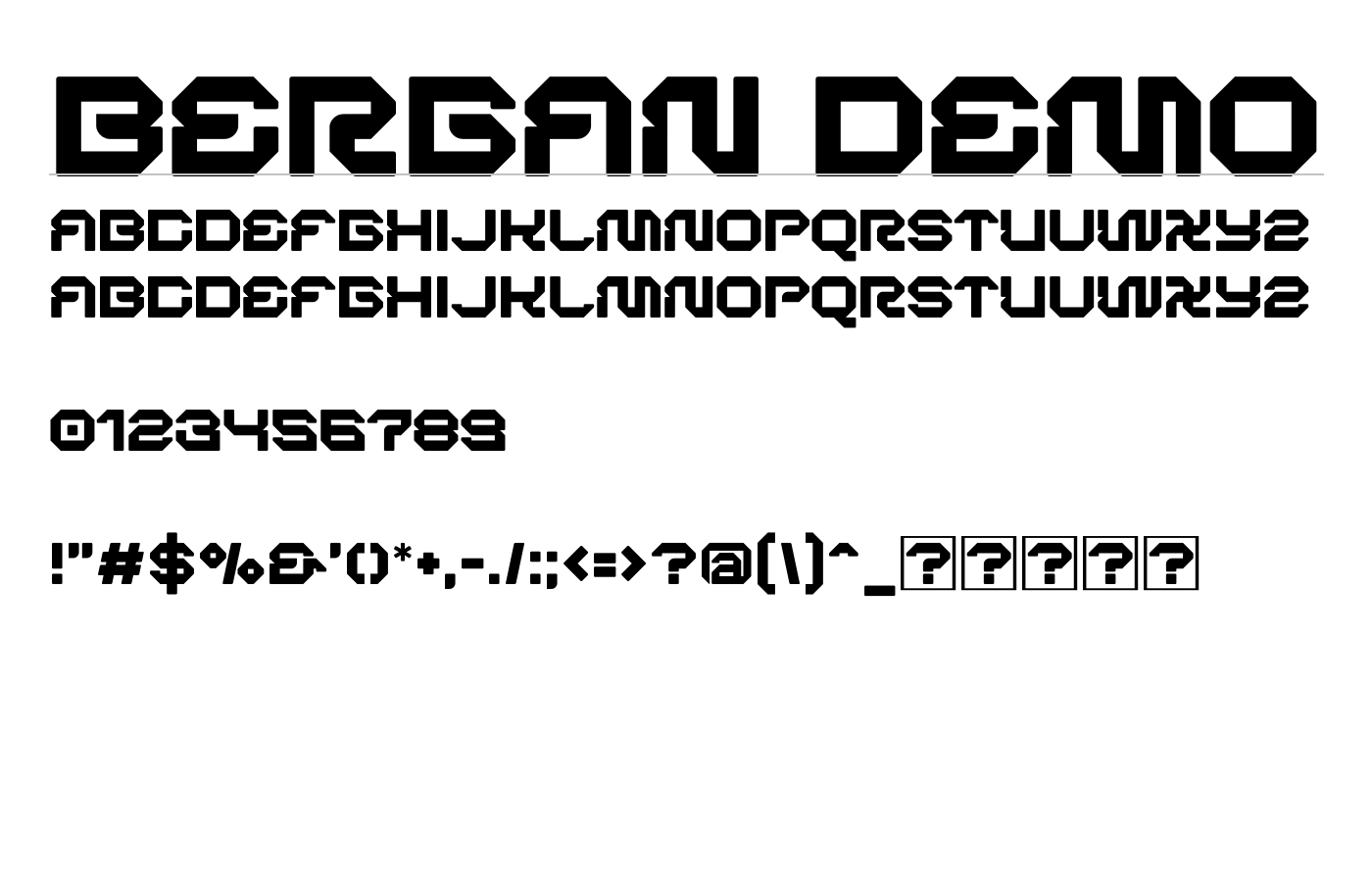
BERGAN is a bold, geometric sans serif font with a futuristic and industrial feel, characterized by sharp angles and high stroke contrast. Its blocky letterforms and tight spacing create a strong visual impact, making it ideal for logos, headlines, and branding that seeks a modern, tech-inspired aesthetic. This font works well in projects needing a distinctive and assertive personality, especially in creative, digital, or gaming contexts.
BERGAN Font
About BERGAN Font